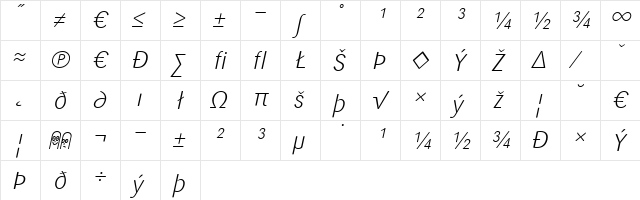
Sari Light Italic Font Preview
| Foundry | Hans Reichel, . Published by FontShop International. FontFont Release |
Design Context for Sari Typeface
Sari offers clean, dependable letterforms without strong stylistic allegiance, making it a practical choice for designers who need flexibility. Its italic angle brings a sense of urgency and motion to the letterforms. The delicate stroke weight brings airiness and refinement to layouts.
Pro Tip: Try Sari for annotation and caption copy alongside an upright companion — the contrast in angle creates a dynamic but ordered typographic system.